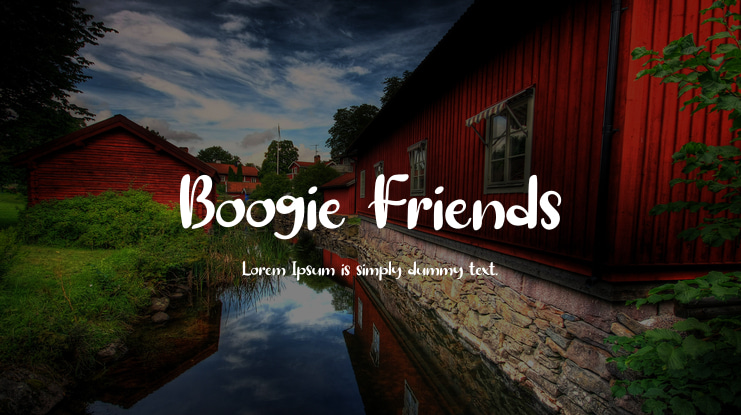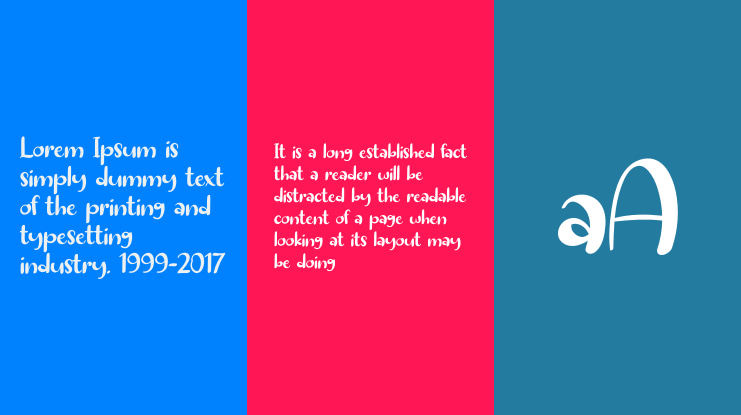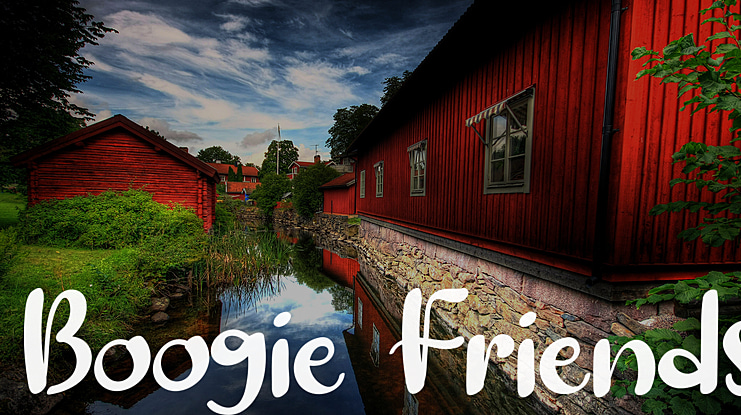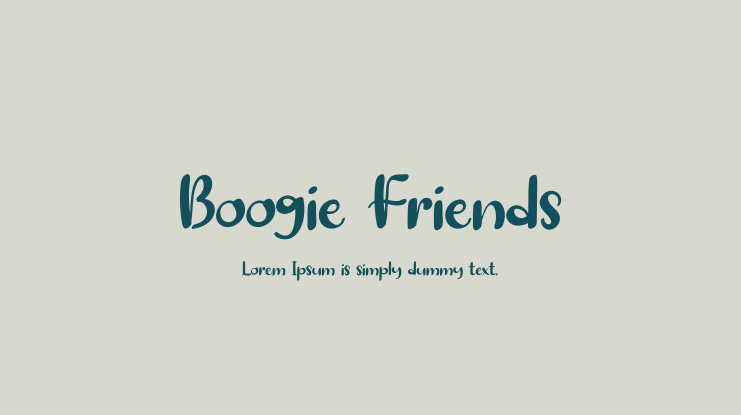
Boogie Friends Font
Boogie Friends is a cool, friendly and sweet display font. It embodies playfulness and authenticity and is the perfect choice for any children activity or school project.